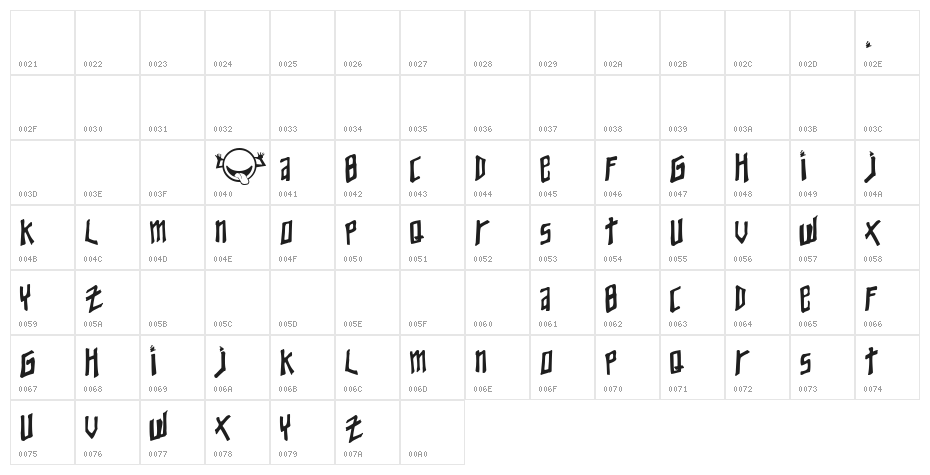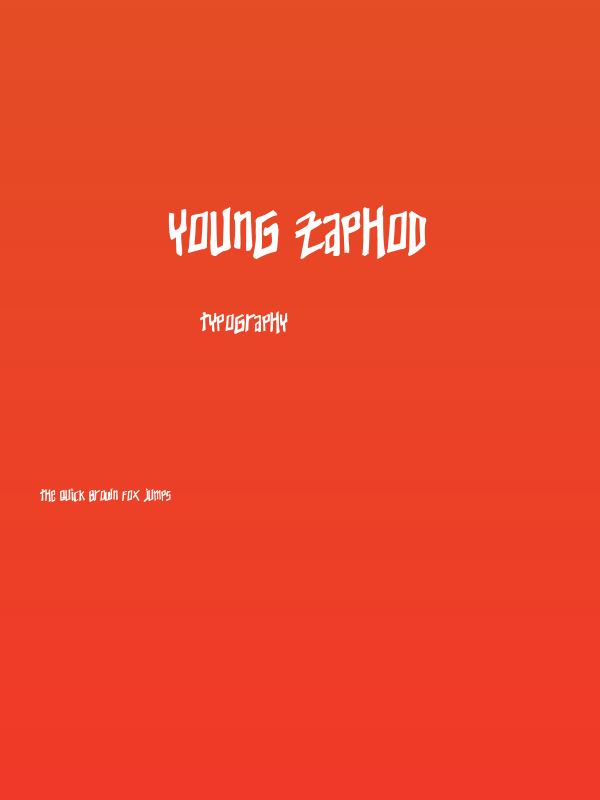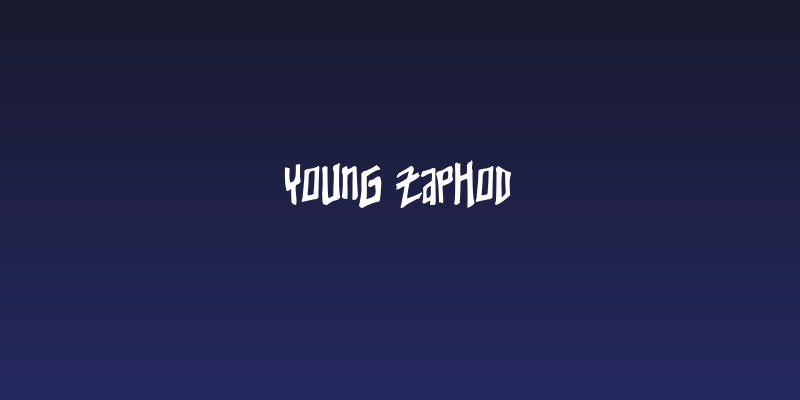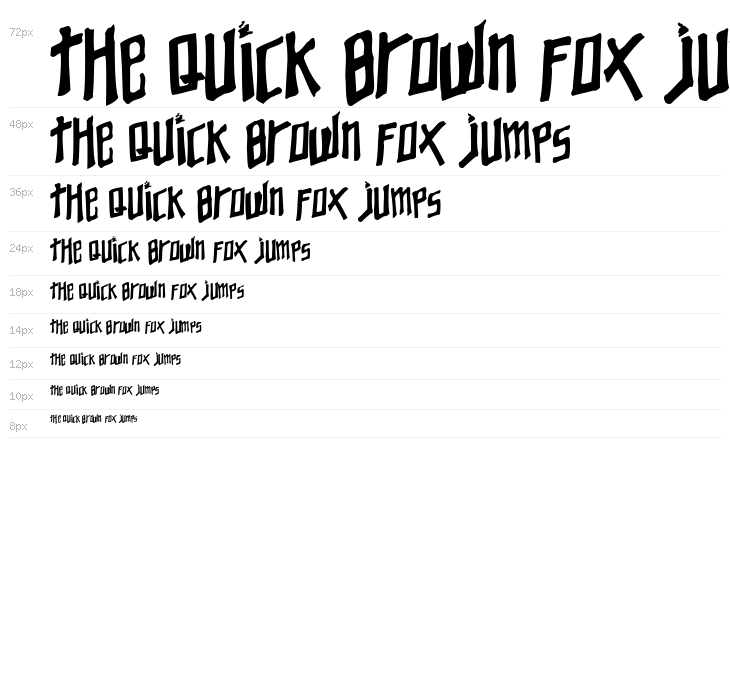
Young Zaphod Font
Young Zaphod Description
This font features a bold and dynamic style with a distinctively angular and geometric appearance. The characters are slightly irregular, giving it a hand-drawn feel while maintaining a structured form. The uppercase letters are tall and narrow, with sharp edges and unique cuts that add to its edgy aesthetic. The lowercase letters follow a similar style, with some characters exhibiting exaggerated curves and angles. The overall design is striking and modern, making it suitable for projects that require a bold statement. The font's unique character shapes and strong presence make it ideal for creative and artistic applications.
| Proposed Projects | Ideal for posters, album covers, branding, and creative design projects. |